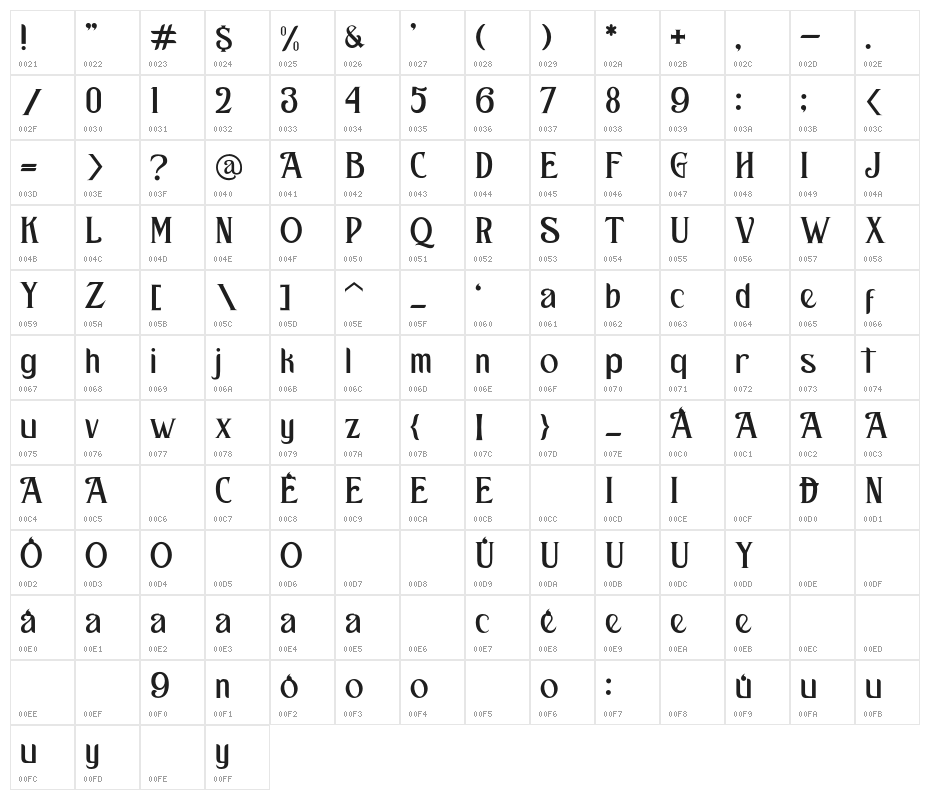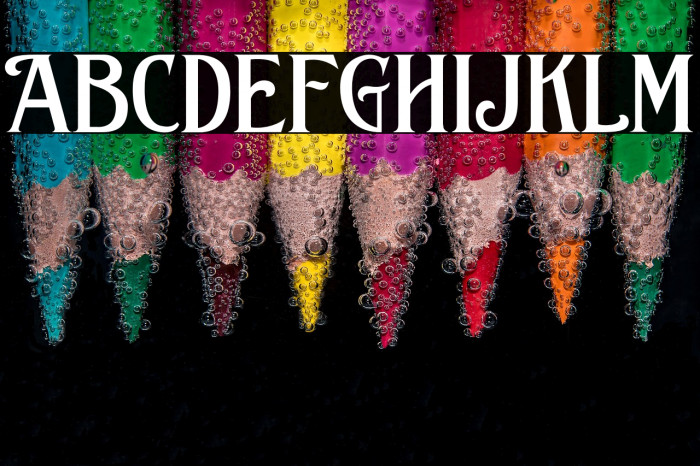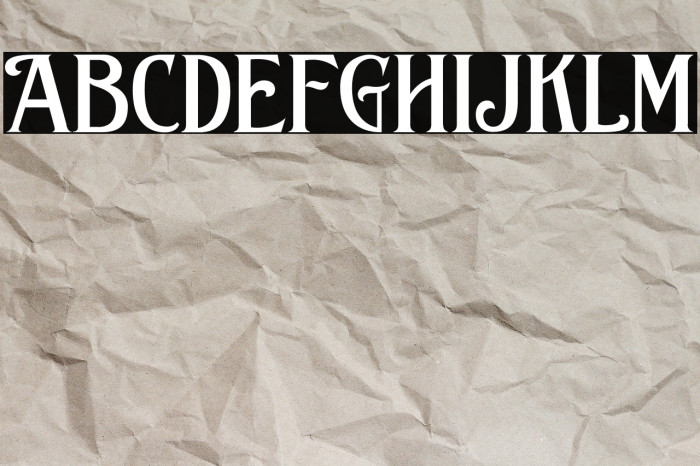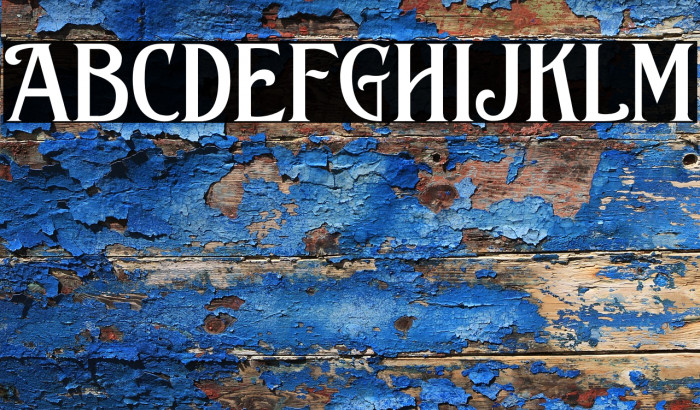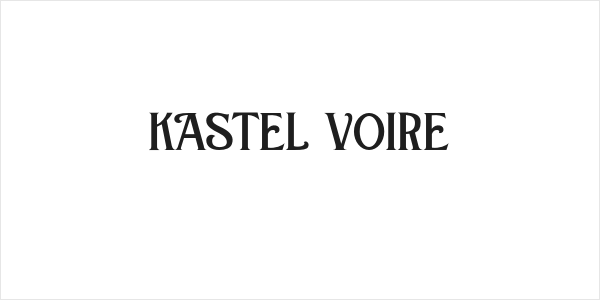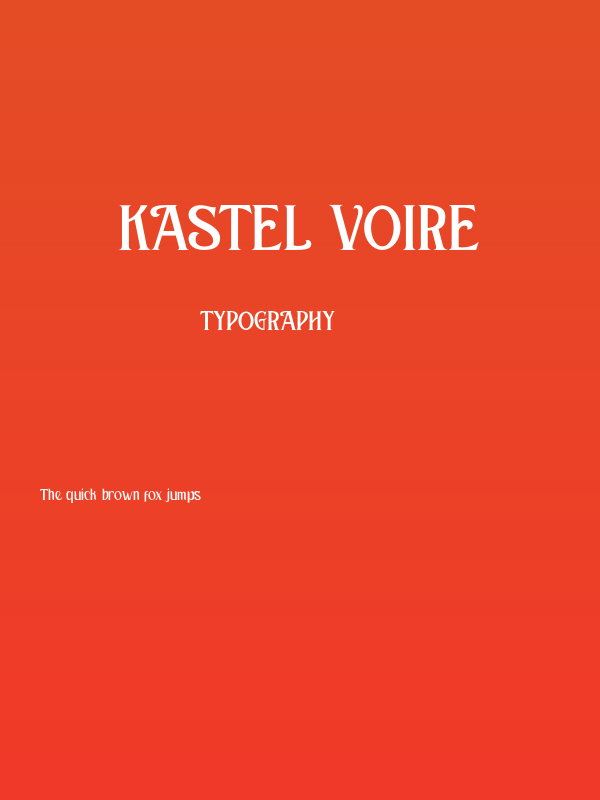
KASTEL VOIRE Font
KASTEL VOIRE Description
This font features a unique blend of modern and vintage styles, characterized by its elegant curves and distinctive serifs. The uppercase letters exhibit a bold presence with slightly flared strokes, while the lowercase letters maintain a more streamlined and cohesive appearance. The numerals are well-balanced, offering a consistent aesthetic that complements the alphabet. Special characters are thoughtfully designed, maintaining the overall style of the font. This font's versatility makes it suitable for a variety of design projects, offering both readability and a touch of sophistication.
| Overall Style | Modern Vintage |
| Use Case | Headlines, Logos, Editorial Design |
| Proposed Projects | Ideal for branding, editorial design, packaging, and invitations. |